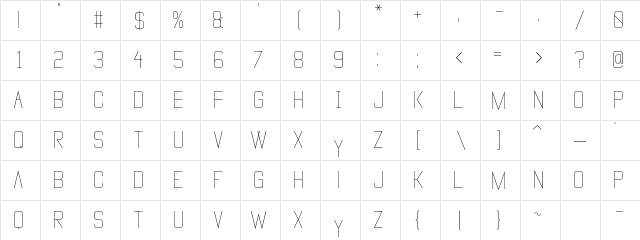
Vanadine Regular
Vanadine Family
Design Context for Vanadine
Vanadine is a composed and adaptable typeface that performs quietly and consistently across a wide range of design contexts.